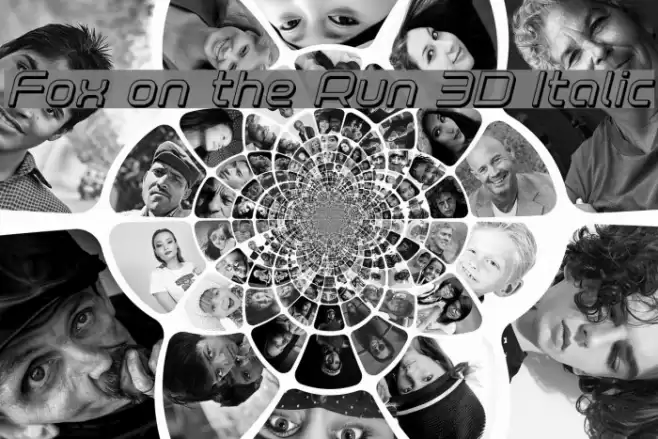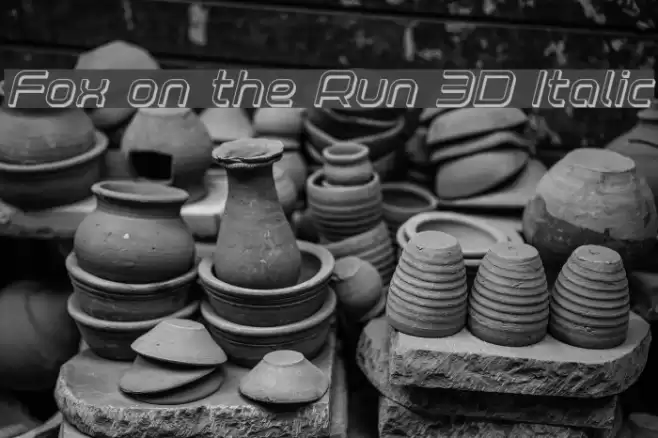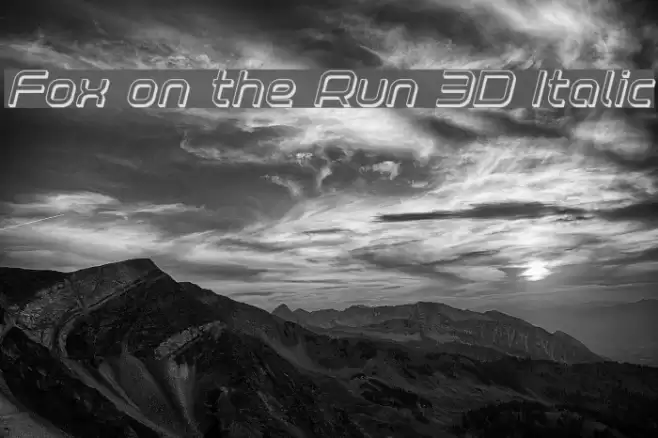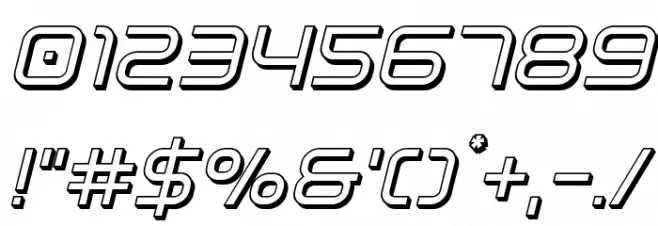
Fox on the Run 3D Italic Font
Fox on the Run 3D Italic Description
This font features a dynamic and futuristic design with a 3D effect that gives it a unique depth and dimension. The letters are outlined with a bold, black stroke that enhances the three-dimensional appearance. The characters are italicized, adding a sense of motion and speed, which is further emphasized by the angular and geometric shapes of the letters. The font maintains a consistent width and spacing, ensuring readability while still delivering a striking visual impact. The numbers and special characters follow the same design principles, making the font versatile for various uses.
A dynamic 3D italic font with bold outlines and geometric shapes from Uncategorized fonts.
- Proposed Projects: Ideal for futuristic designs, tech-related branding, video game titles, and dynamic posters.